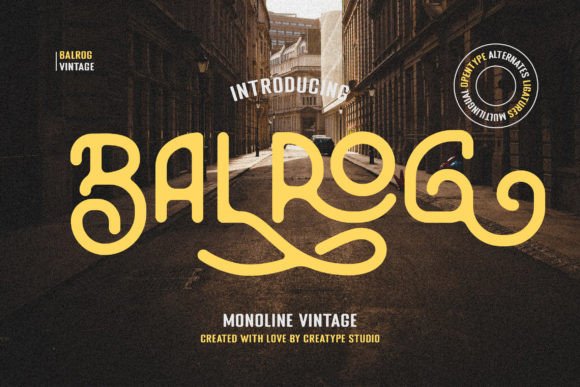
Unleash your creativity with Balrog Font, the ultimate font for typography logos, branding projects, and a myriad of design endeavors. Its captivating fusion of rounded details and a bold presence exudes a welcoming vintage charm that will leave an indelible mark on your designs.
Balrog Font is the perfect companion for those seeking to elevate their branding projects with a touch of sophistication and uniqueness. Its versatile nature effortlessly complements logos, wedding designs, social media posts, advertisements, product packaging, labels, and more. Let your imagination run free as you explore the endless possibilities that await you with Balrog Font.
With Balrog Font, you'll have access to a treasure trove of glyphs and ligatures, meticulously crafted to add an extra layer of charm and customization to your designs. Unleash your creativity and let Balrog Font be your guide on a journey to visual excellence.